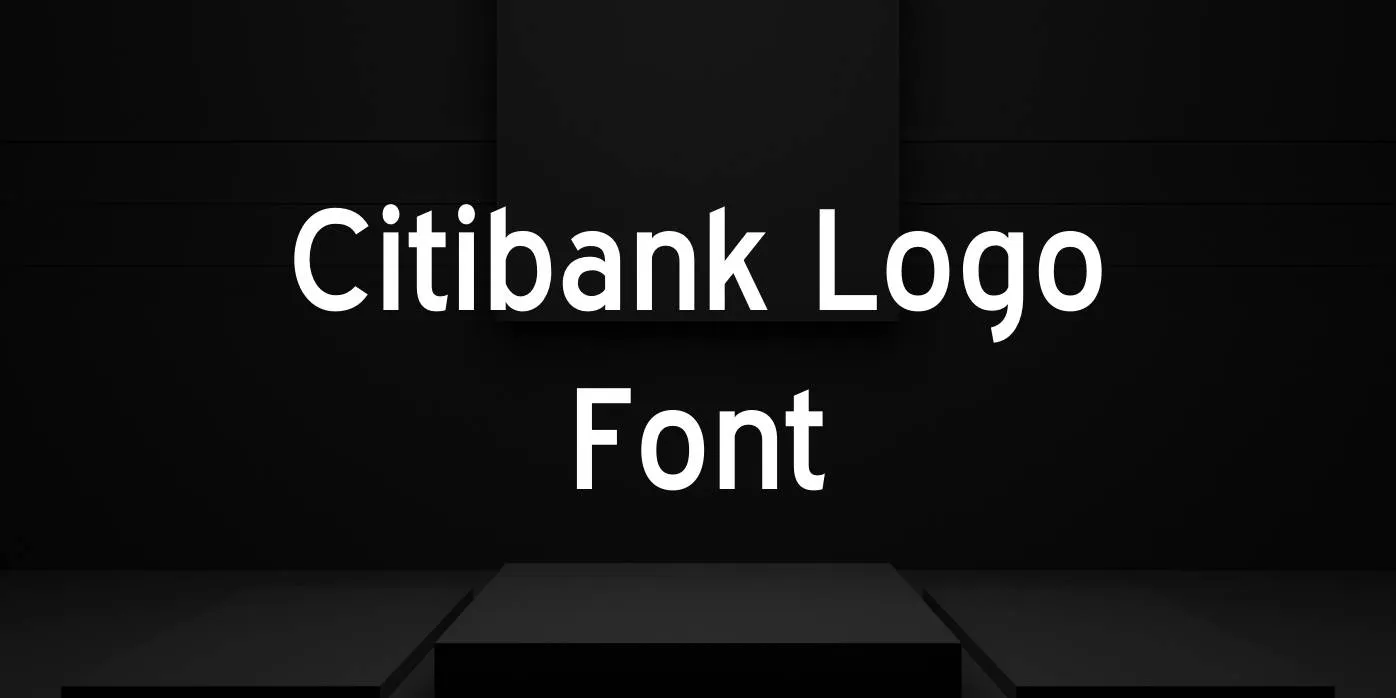
Citibank Logo Font
The Citibank logo font is one of the most iconic and recognizable logos in the world. The bank has been using the same font for its logo since its inception in 1812. The font, called Citicorp, was designed specifically for the bank by William Lister Thorowgood. While the exact date of the creation of the Citicorp font is unknown, it is believed to have been created sometime in the late 18th or early 19th century.
The font was created specifically for the bank and has been used by the bank ever since. This font glyph has a unique history and it is also easily utilized in the CSS. You can also use the dinot font which is closest to this font family. It was first used on Citibank’s checkbooks in 1812, and then on its stationery in 1813.
The font was also used in Citibank’s advertising in the early 20th century.